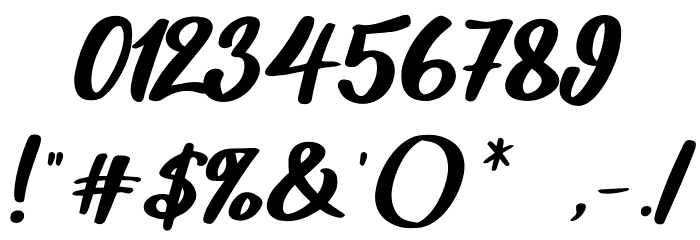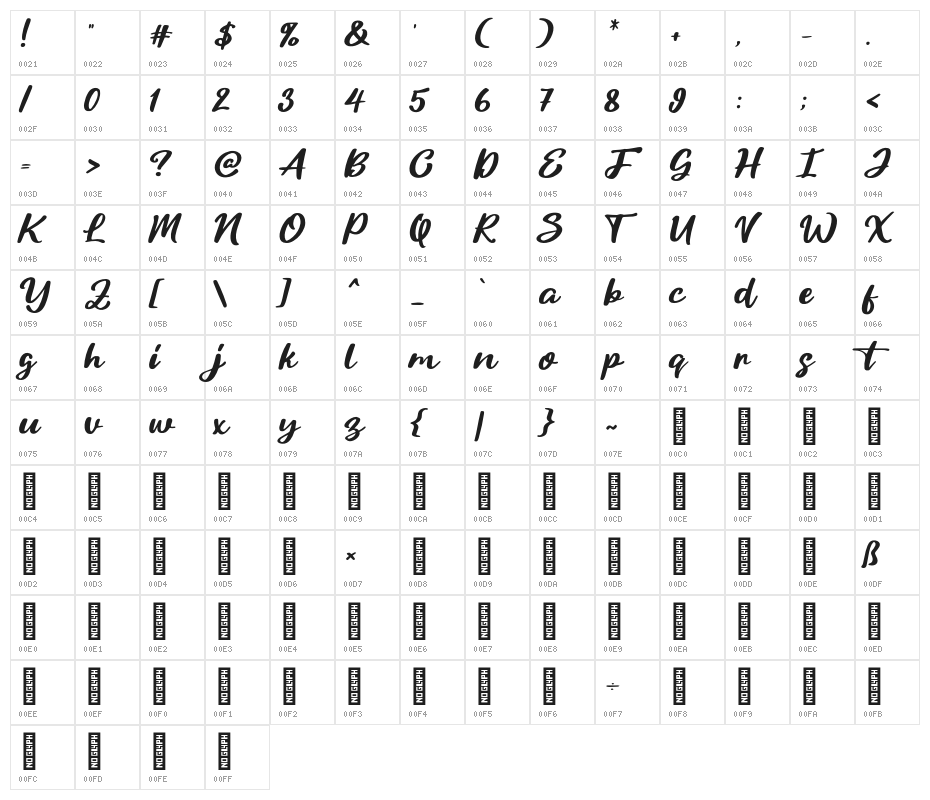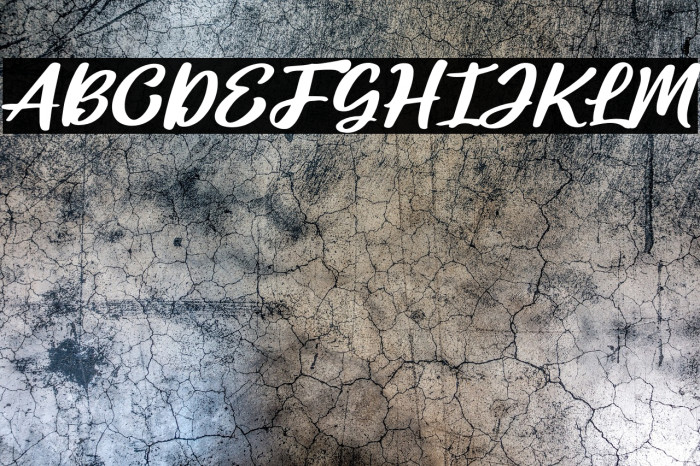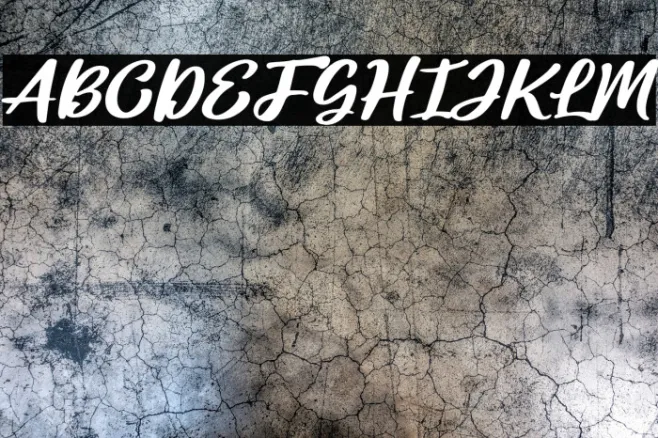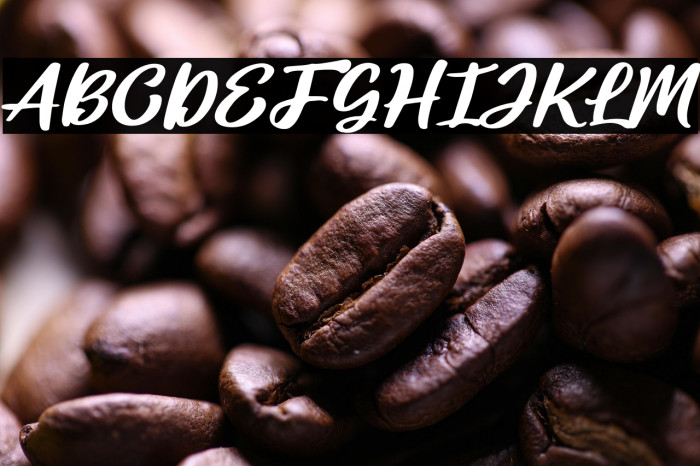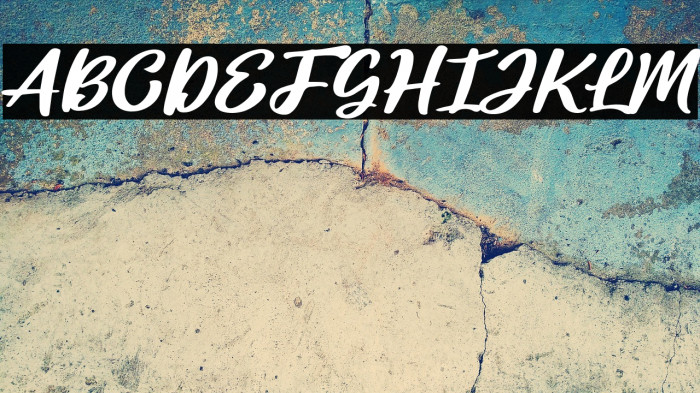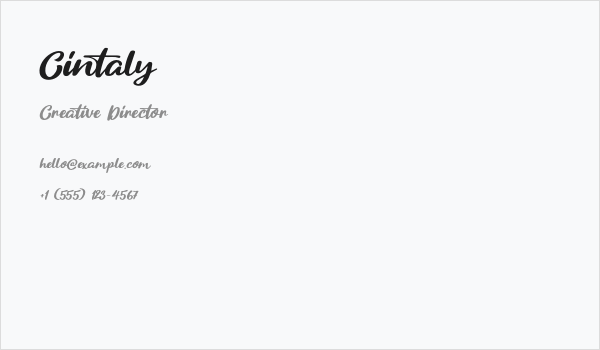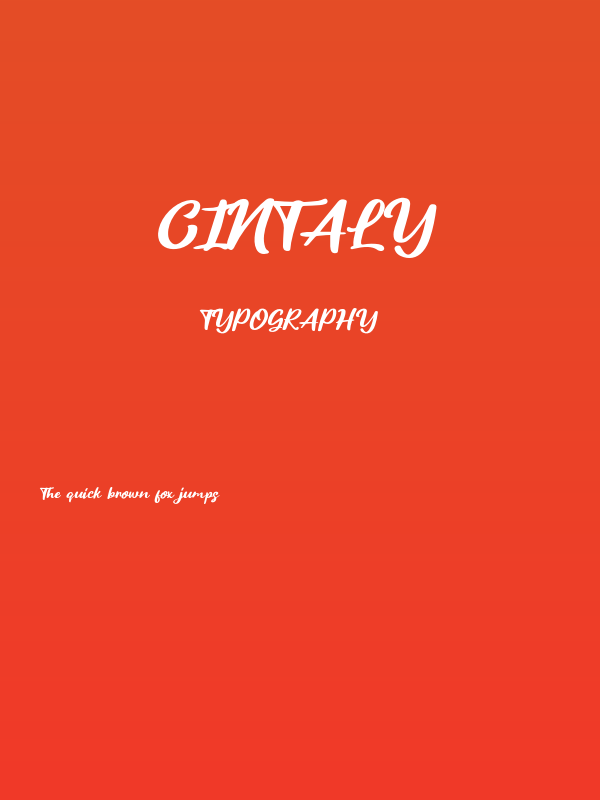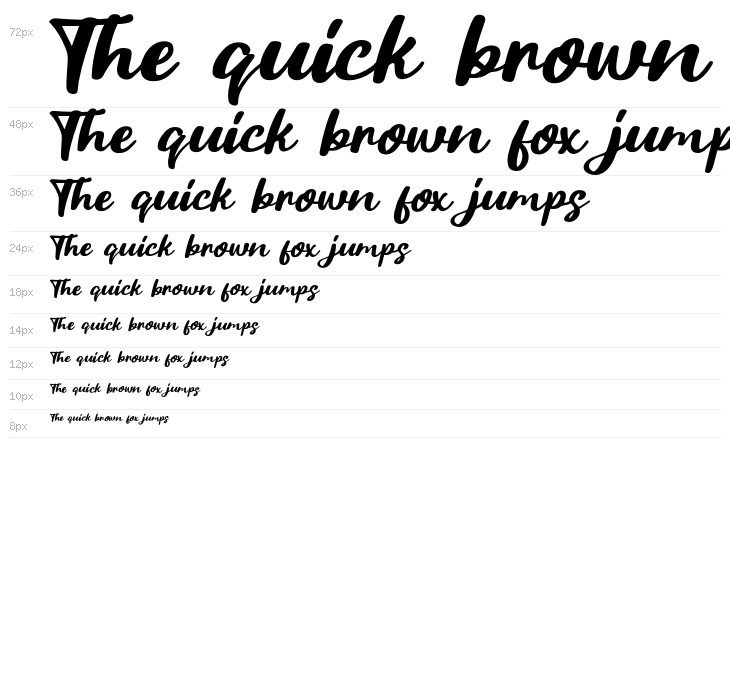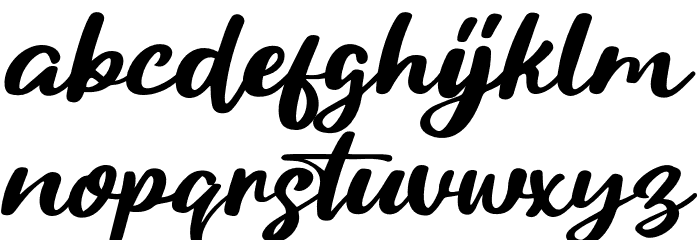
Cintaly Font
Cintaly Description
This font embodies a lively and energetic script style, characterized by its flowing, cursive letterforms. The uppercase letters exhibit a bold and confident presence, with sweeping curves and dynamic strokes that convey a sense of movement. The lowercase letters maintain a consistent rhythm, with rounded forms and smooth connections that enhance readability. The numerals are equally expressive, featuring a playful yet balanced design that complements the overall aesthetic. Special characters are thoughtfully integrated, maintaining the font's cohesive style. This font's boldness and fluidity make it ideal for projects that require a touch of elegance and flair.
| Proposed Projects | Ideal for wedding invitations, branding, greeting cards, and social media graphics. |